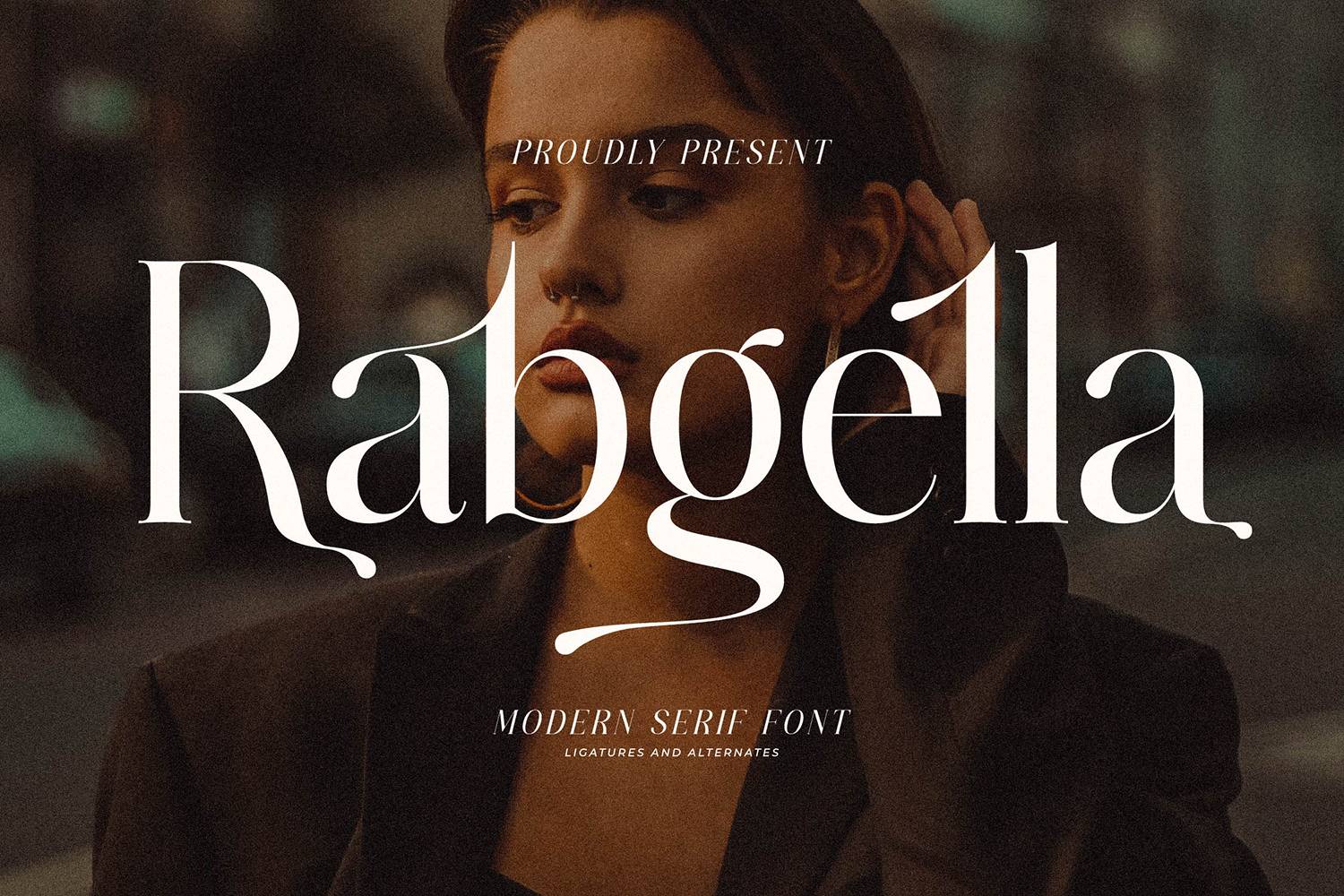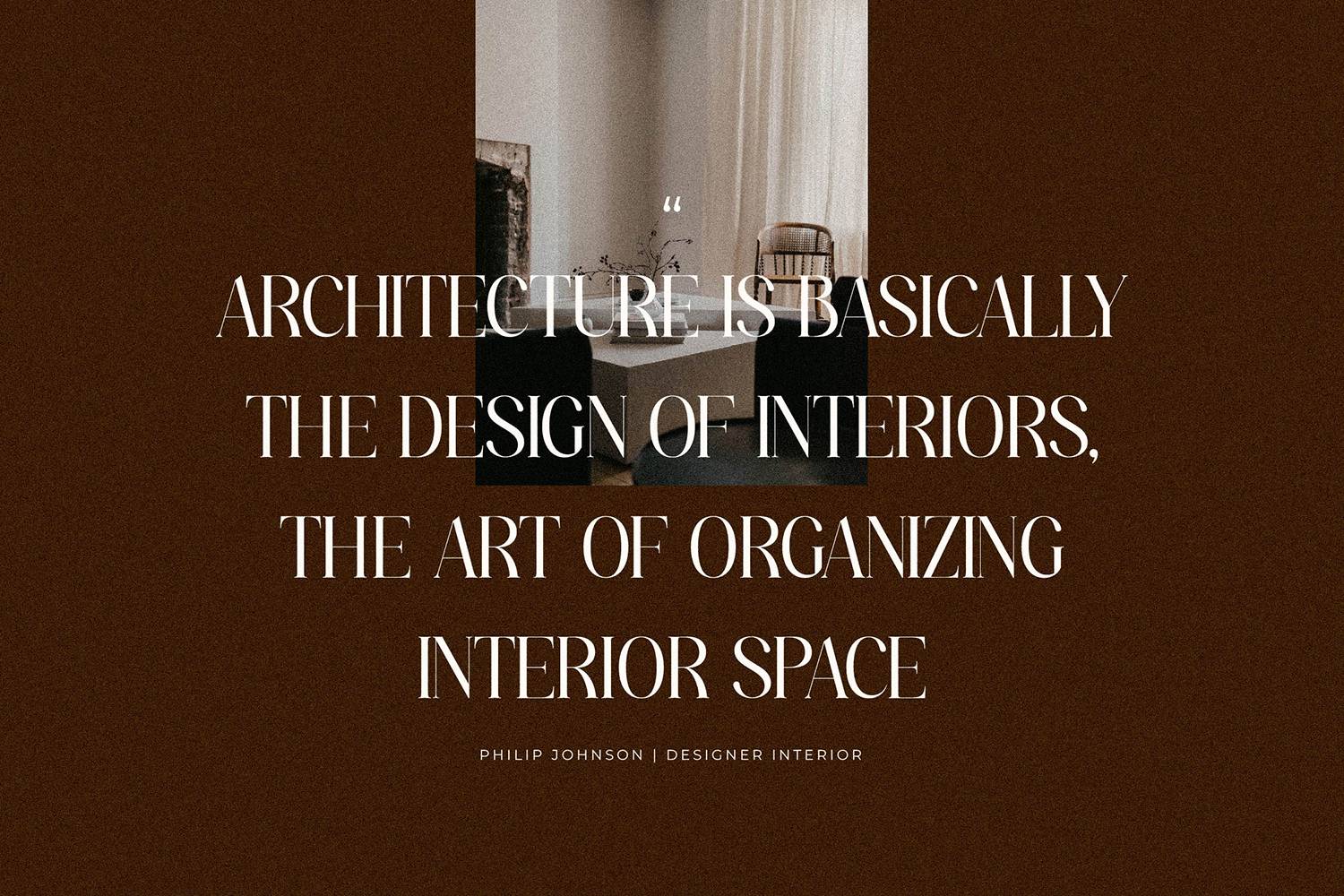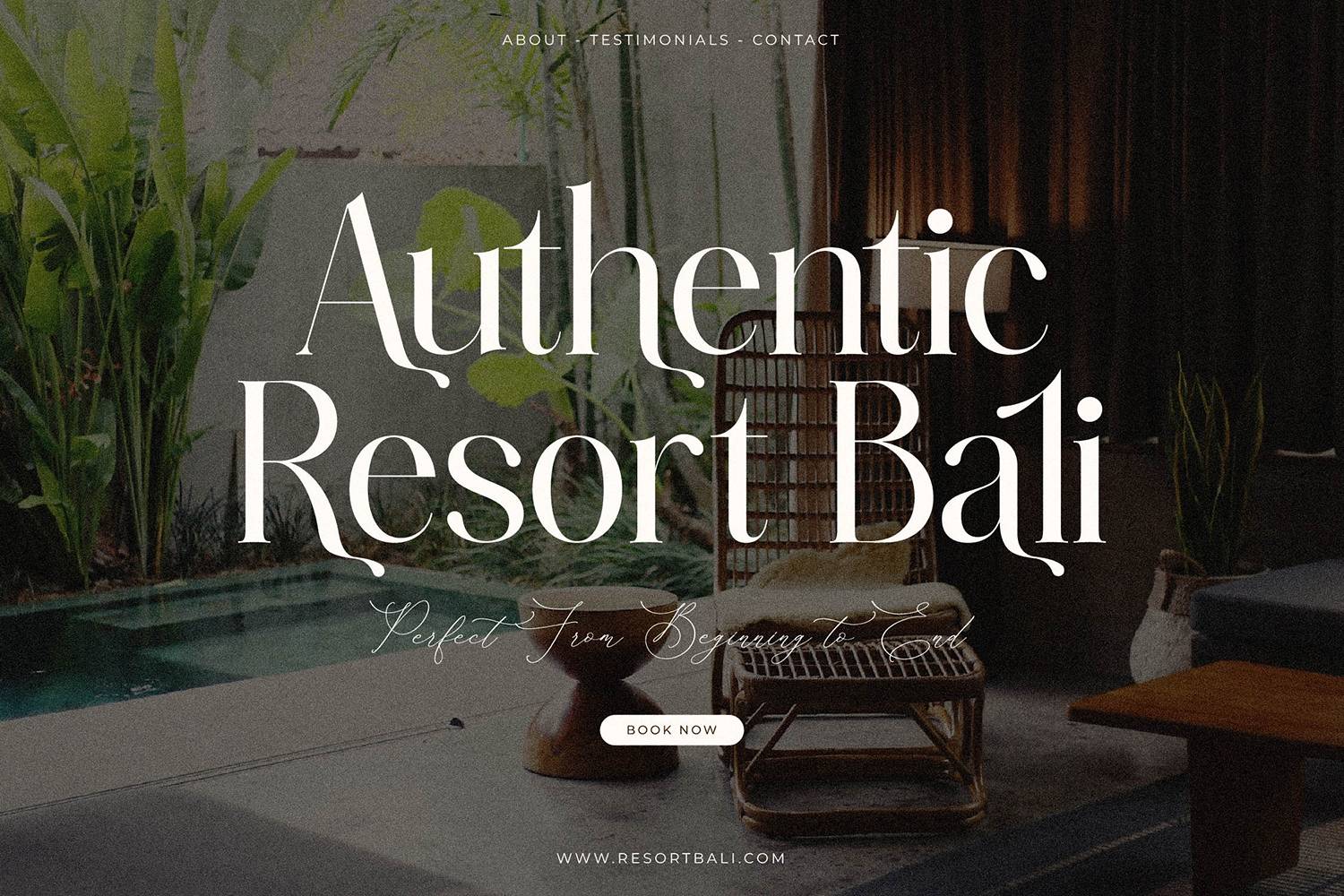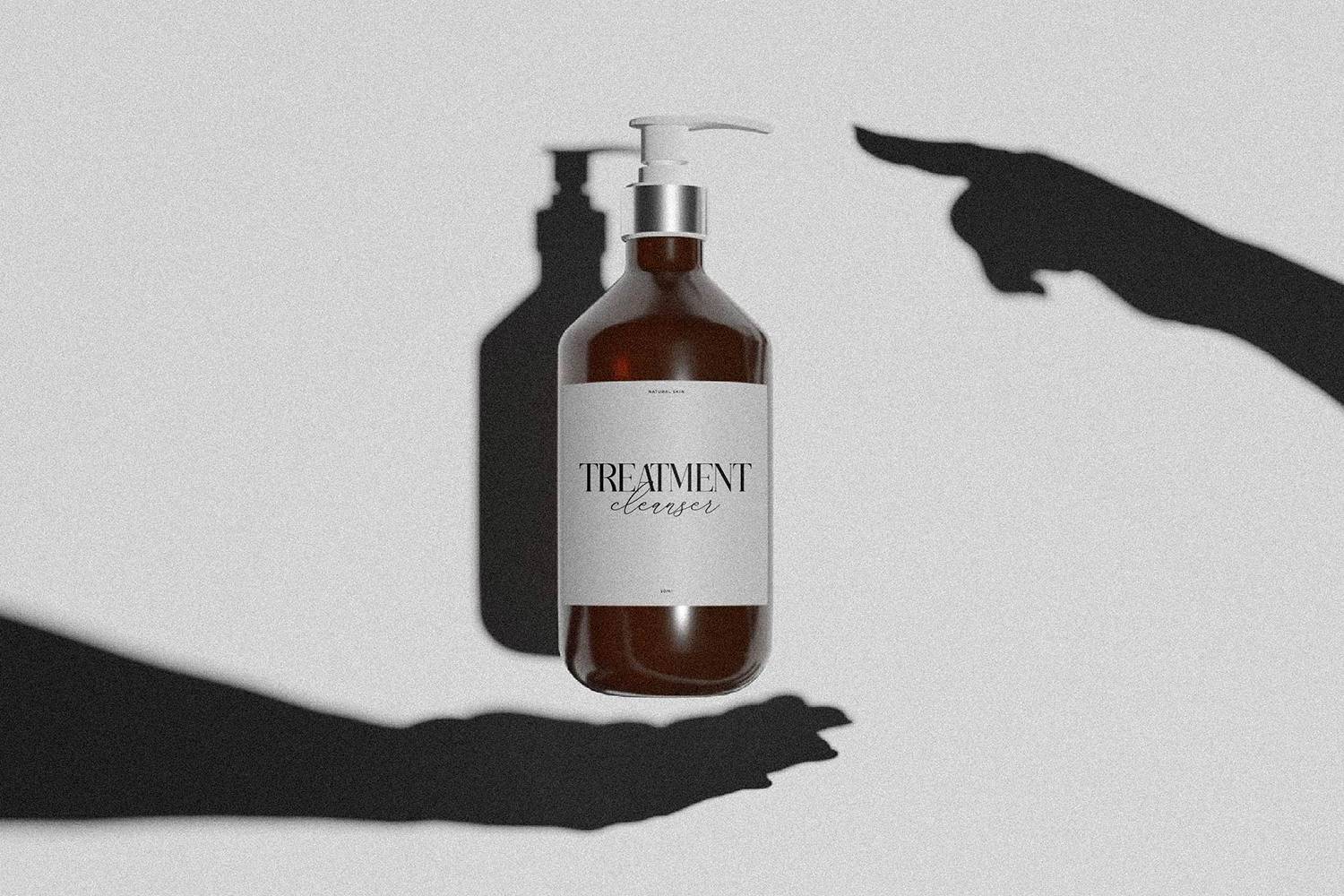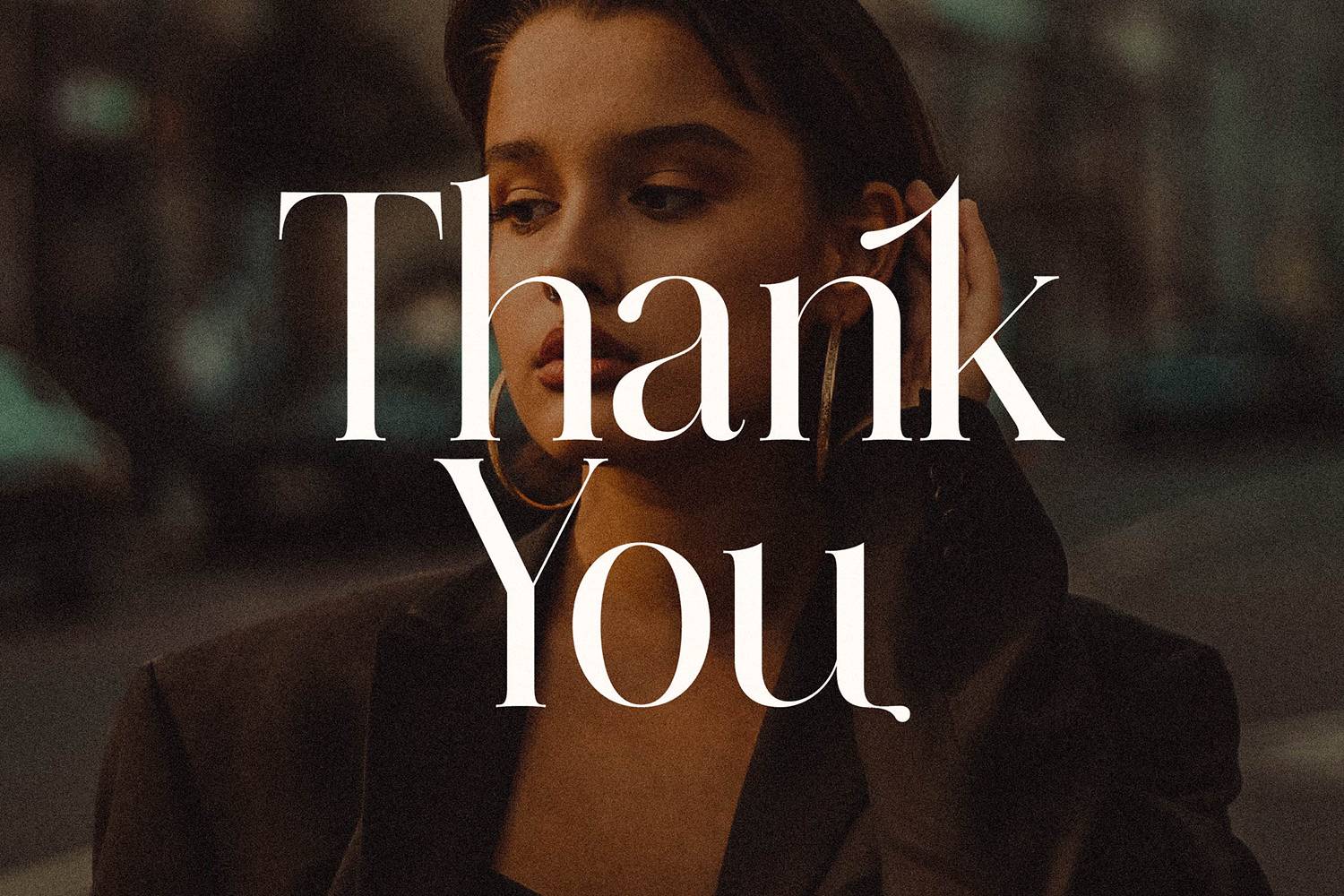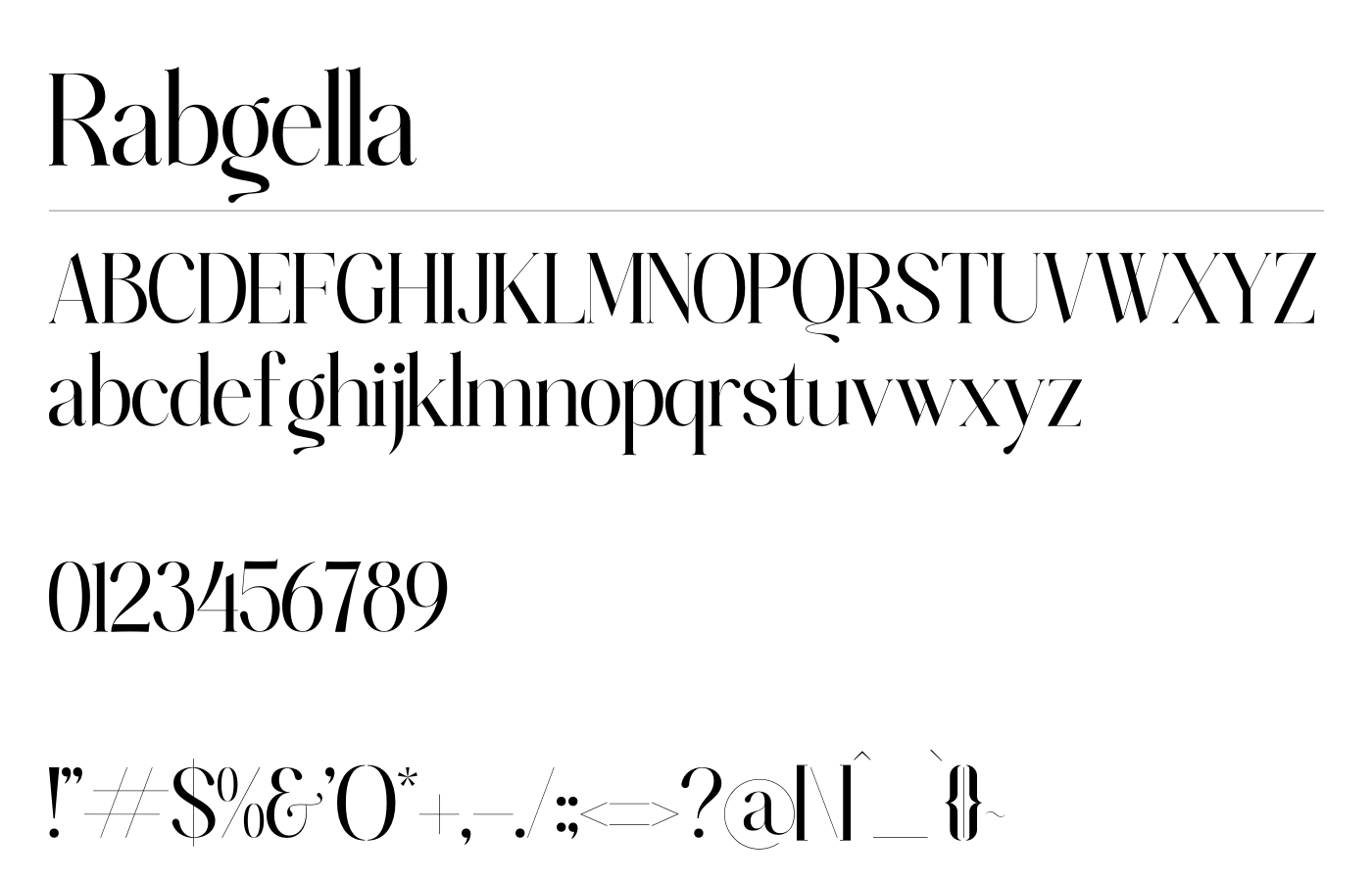
Rabgella is an elegant serif typeface characterized by its high contrast between thick and thin strokes, slender proportions, and refined, sharp serifs. Its sophisticated style, featuring delicate curves and unique letterforms like the distinctive tail on the "g" and the graceful flourishes on certain capitals, makes it ideal for luxury branding, editorial headlines, and fashion or beauty design where a sense of modern refinement and exclusivity is desired. This font’s graceful presence works best in larger sizes, enhancing its stylish and upscale appeal.
Rabgella Typeface Font
About Rabgella Typeface Font